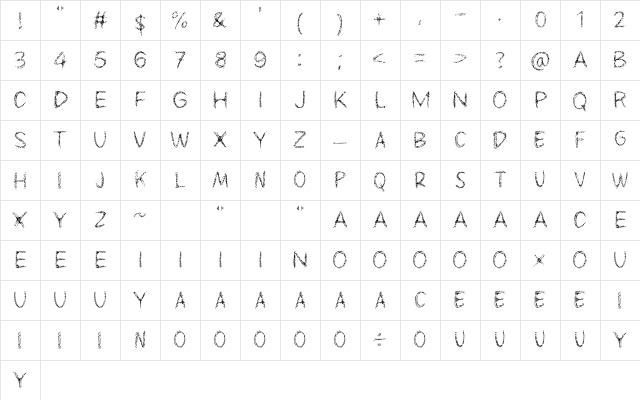
Chalk School Regular Free Font
Chalk School Regular
Designer: MJType (Muhamad Junaid) www.mjtype.com
Design Context for Chalk School
Chalk School is a composed and adaptable typeface that performs quietly and consistently across a wide range of design contexts.